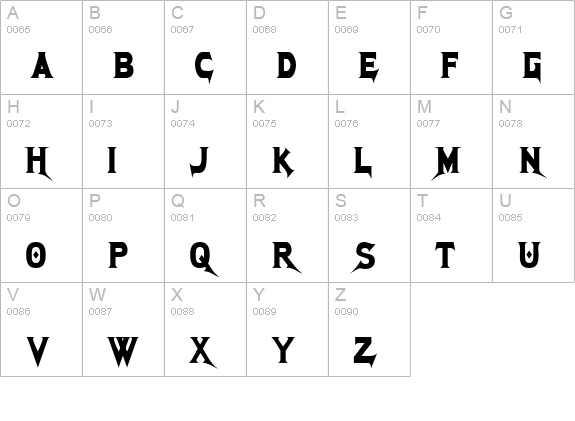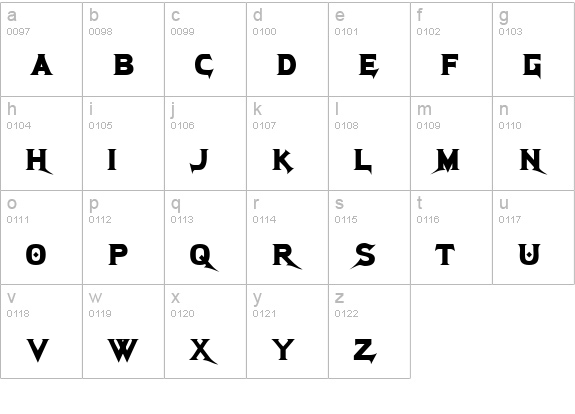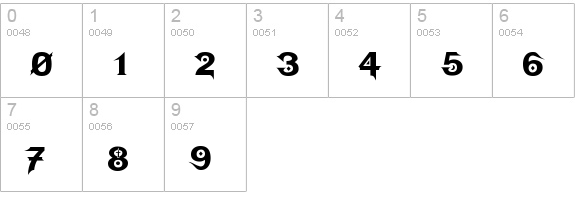
Megadeth Cryptic Font Details
The Megadeth Cryptic font is a bold and edgy typeface inspired by the iconic heavy metal band Megadeth. With its sharp angles and intricate design, this font exudes a sense of power and mystery. Perfect for creating eye-catching posters, album covers, and merchandise designs, Megadeth Cryptic will make your text stand out with its unique aesthetic. And the best part? This font is available for free download at FontsMarket.com. Get your hands on this exclusive typeface today and unleash your creativity with the raw energy of Megadeth Cryptic.